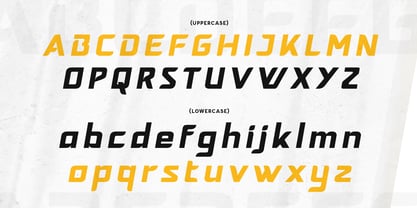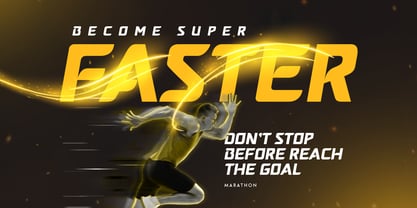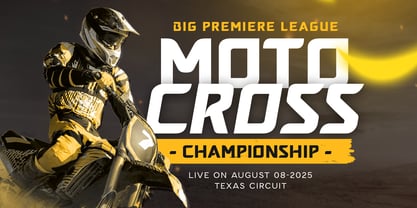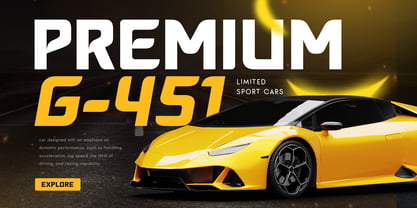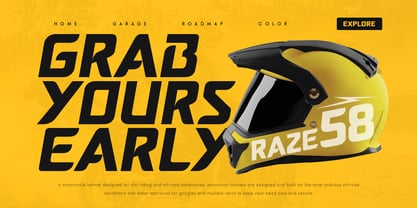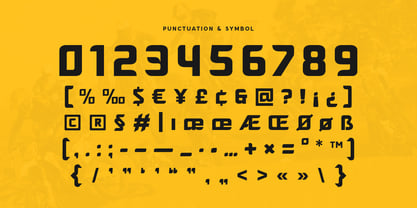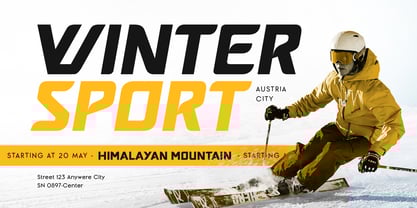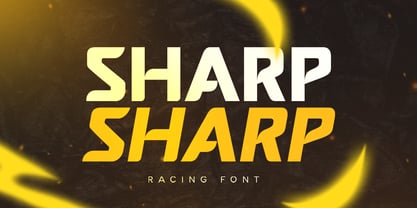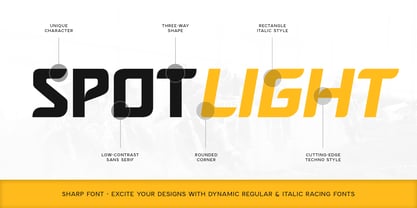
Sharp SS
The Sharp SS Font Family was designed by Zamroni Hamzah and published by Sensatype Studio. Sharp SS contains 2 styles and family package options.
Sharp SS is a dynamic racing sport font designed to inject energy and power into your bold design projects. Inspired by the speed and excitement of racing, Sharp SS combines sleek lines with a strong, athletic aesthetic. This font is perfect for creating striking logos, sports branding, and high-energy designs that stand out.
The Story Behind Sharp SS:
Sharp SS was created with the thrill of the racetrack in mind. It embodies the spirit of competition and the drive for excellence, making it an ideal choice for sports-related projects and dynamic branding. Whether you're designing for a racing team, creating athletic apparel, or crafting eye-catching logos, Sharp SS delivers the impact and style you need.
Sharp SS Font Features:
• Dynamic Design: Perfect for racing, sports branding, and high-energy projects.
• Versatile Usage: Ideal for logos, branding, headlines, and dynamic designs.
• High Legibility: Ensures your message is communicated effectively with clear and bold lettering.
• Racing Appeal: Combines sleek lines with a strong, athletic aesthetic to create a unique and memorable look.
Elevate your design projects with Sharp SS and bring a touch of racing energy to your work.